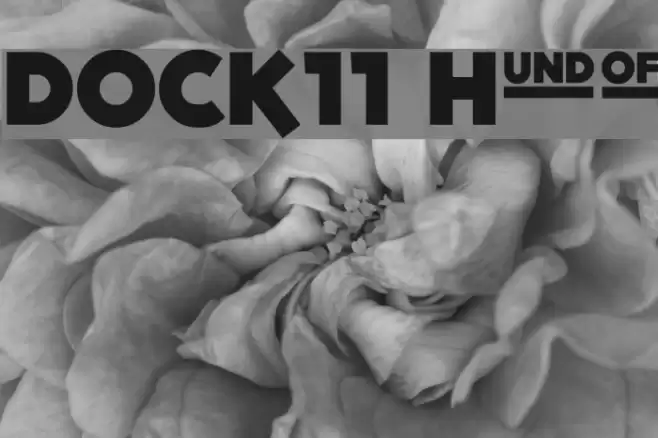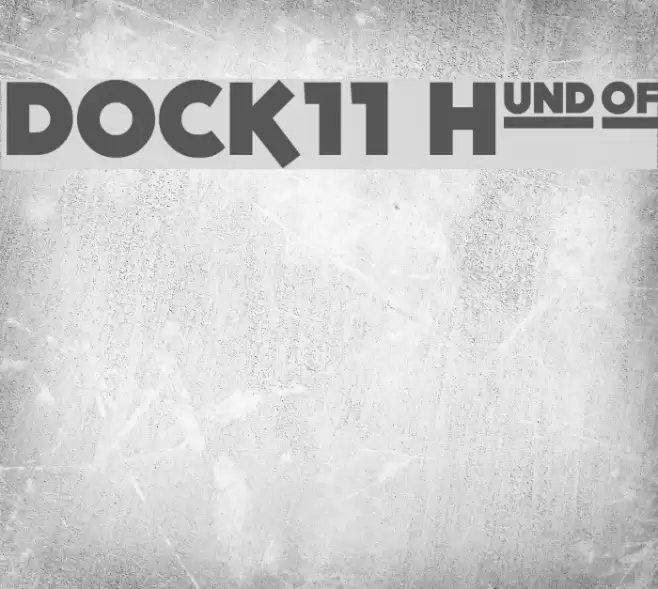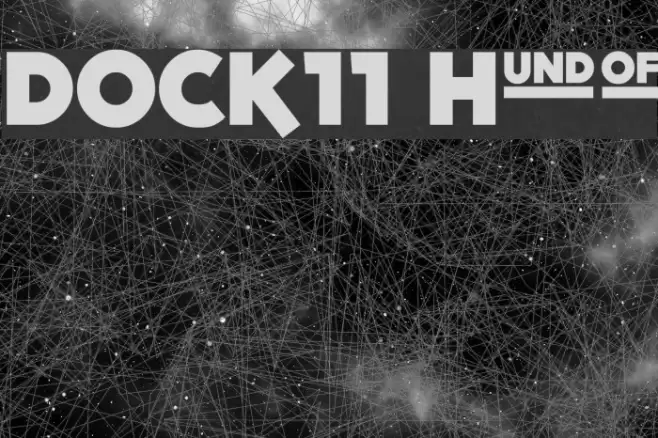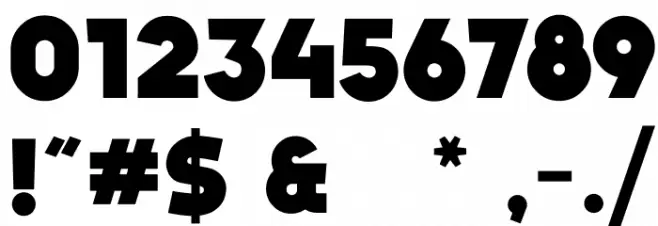
DOCK11 Heavy Font
DOCK11 Heavy Description
This font features a bold and striking design with thick, uniform strokes that create a strong visual impact. The characters are geometric and sans-serif, with a modern and clean appearance. The uppercase letters are particularly prominent, with a consistent height and width that emphasize their boldness. The numerals and special characters maintain the same weight and style, ensuring a cohesive look across all text elements. The font's design is highly legible, making it suitable for attention-grabbing headlines and display purposes. Its bold nature and geometric shapes lend it a contemporary feel, ideal for modern branding and advertising.
A bold, geometric sans-serif font with a modern and striking appearance from Uncategorized fonts.
- Proposed Projects: Ideal for branding, advertising, headlines, posters, and any project requiring a strong visual impact.